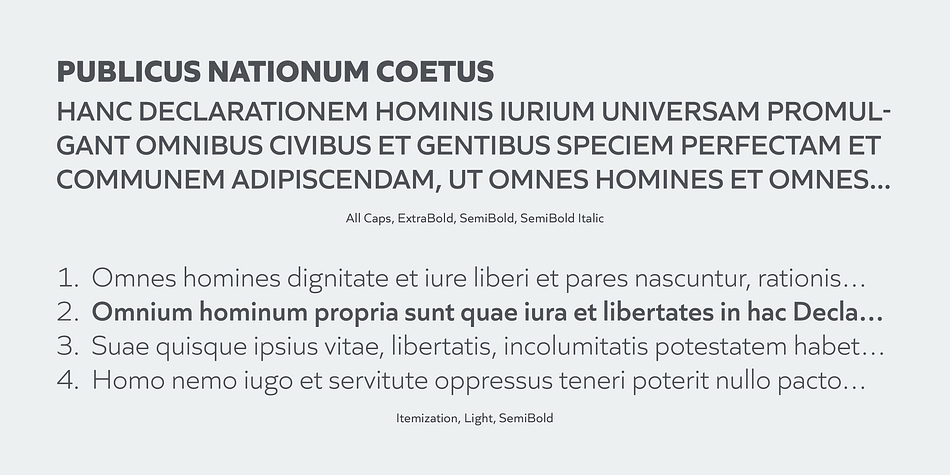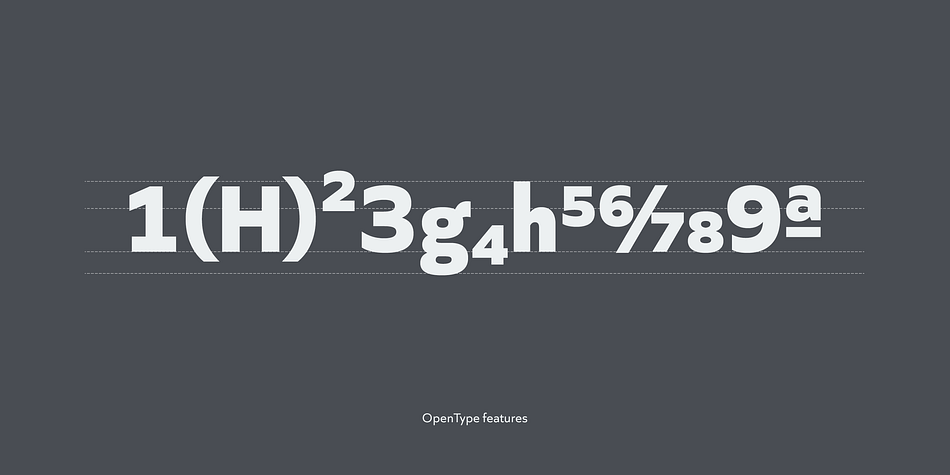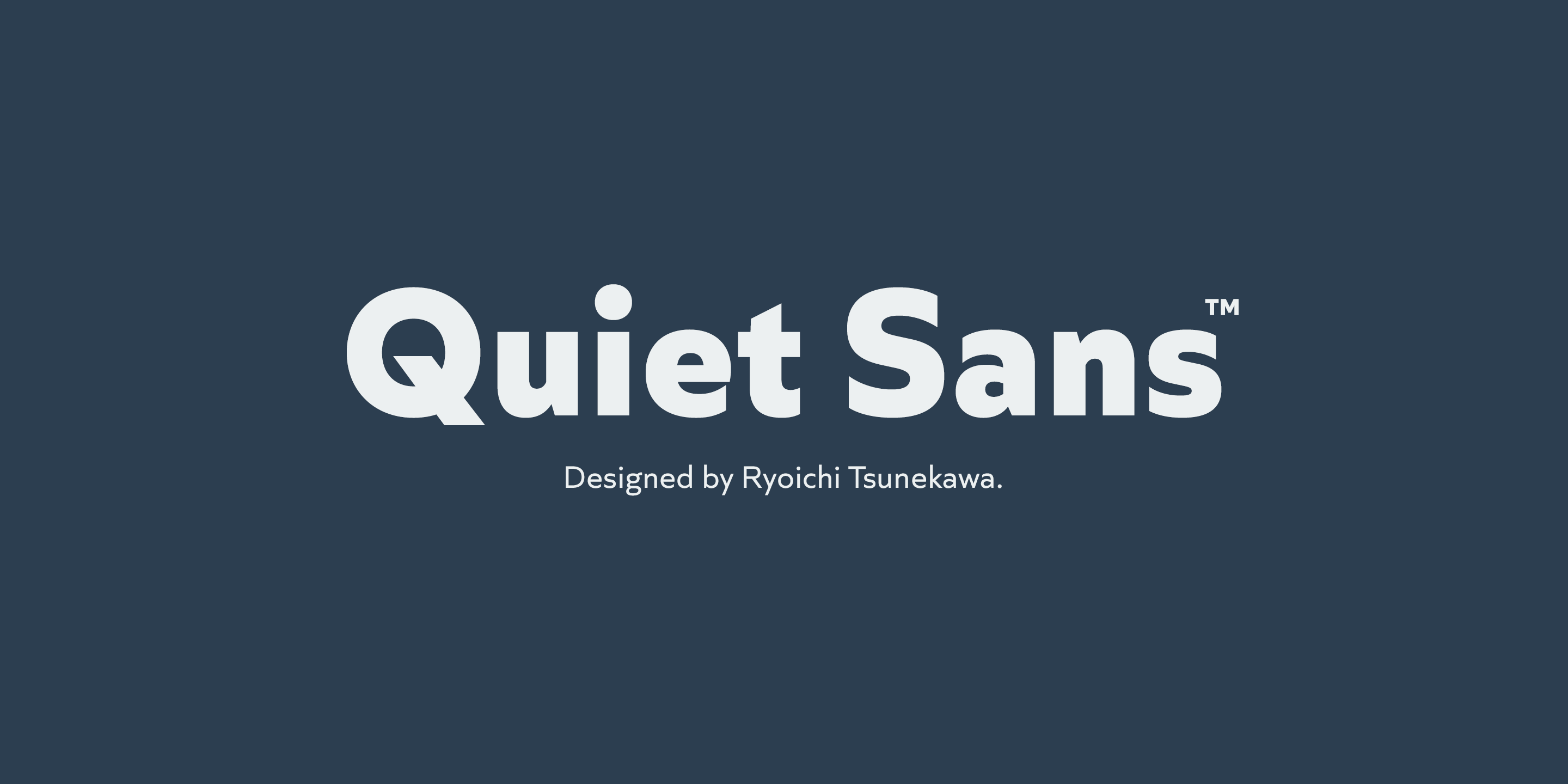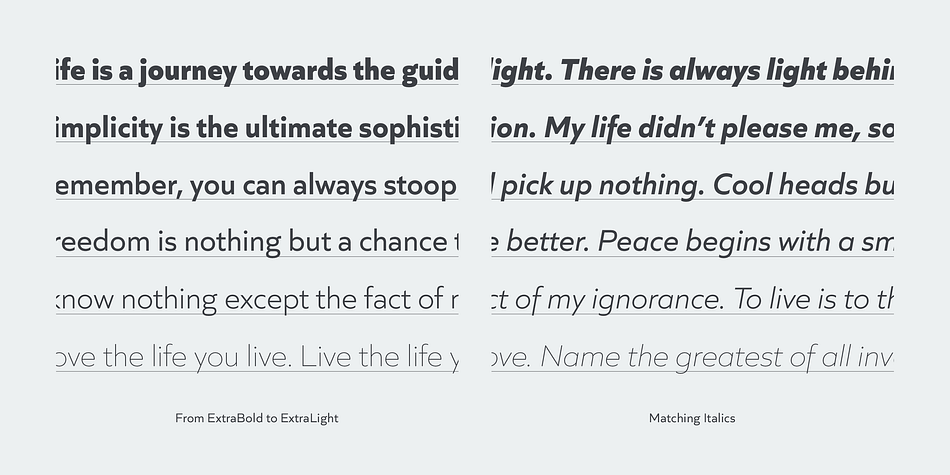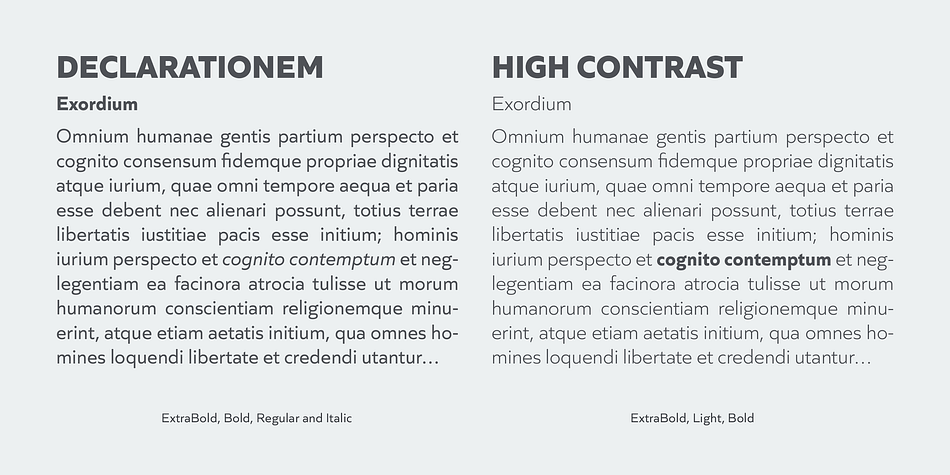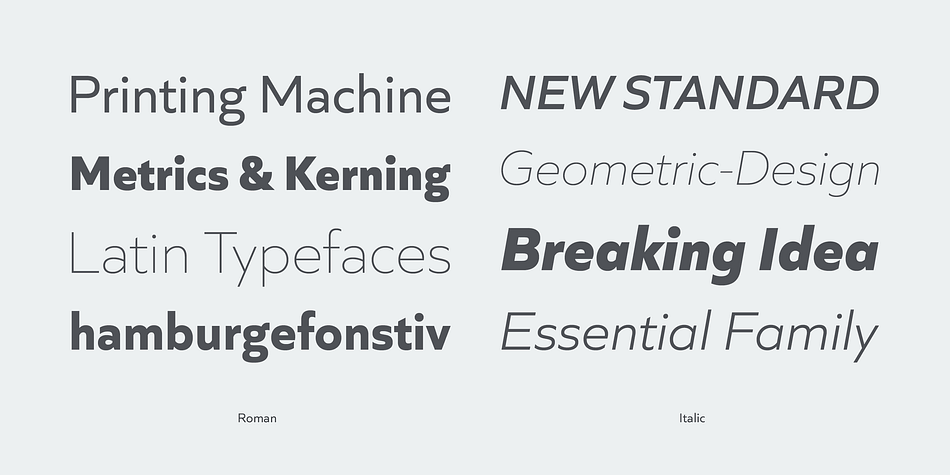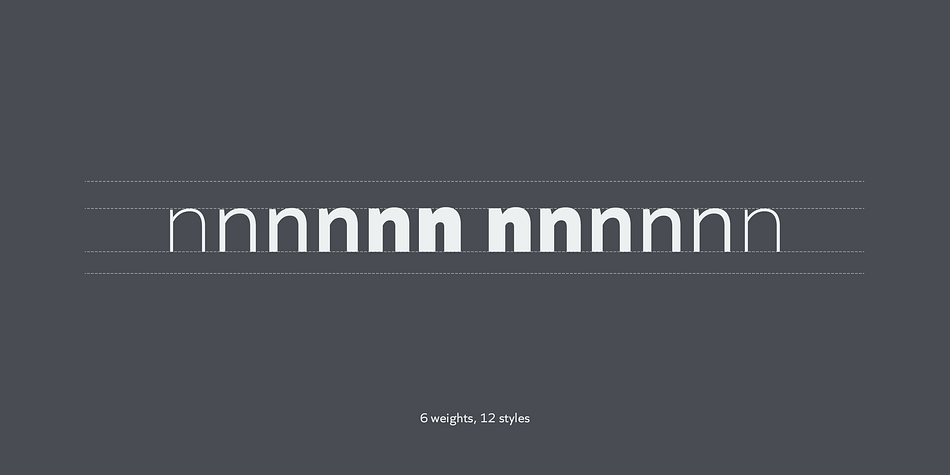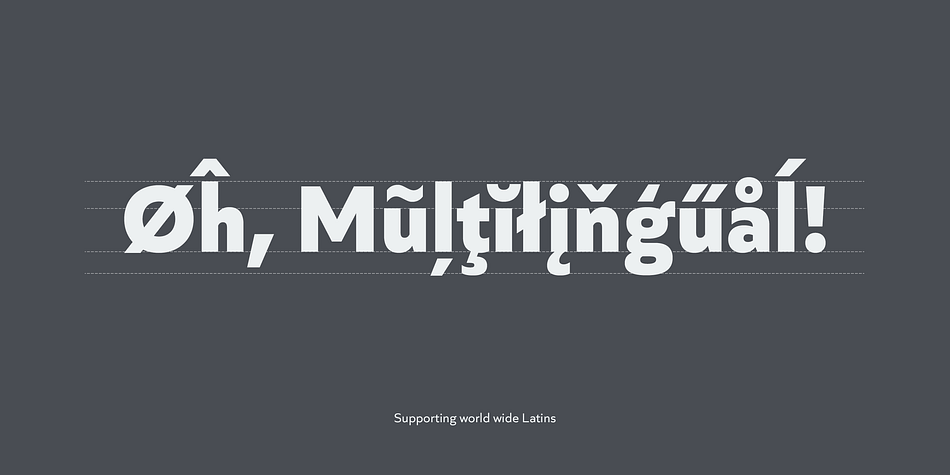
Designed by Ryoichi Tsunekawa, Quiet Sans is a sans serif font family. This typeface has twelve styles and was published by Dharma Type.
Quiet Sans is a super geometric sans-serif family for text designed by Ryoichi Tsunekawa. The whole family consists of 6 weights from ExtraLight to ExtraBold and their matching Italics.
The basic concept of this family is not only to make crisp, sharp and strong impact by geometric letter form but also to be legible and readable even on small size screen by their sophisticated design.
Quiet Sans supports almost all European languages: Western, Central, South Eastern Europeans and afrikaans. And proportional figures, superior figures, inferior figures, denominators, numerators, fractions, ordinals and case-sensitive-forms can be accessed by using OpenType features.